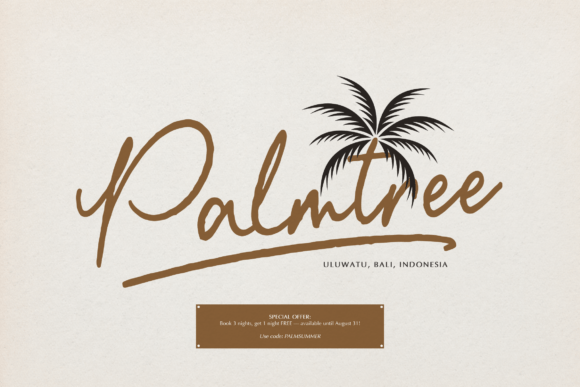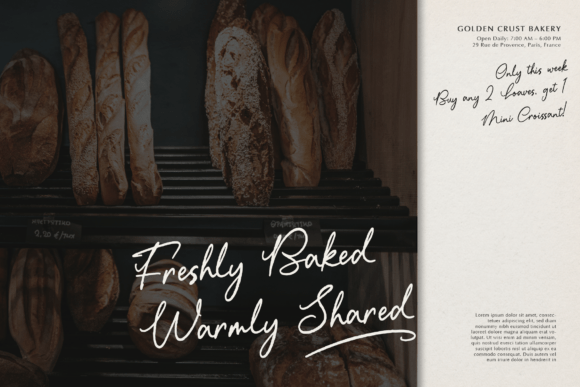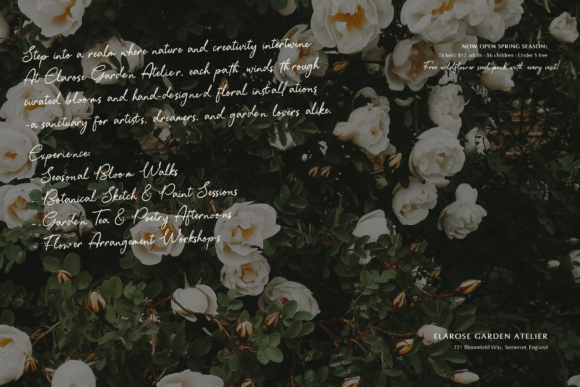
Introduction to Day Dreaming Font
The Day Dreaming is a graceful script handwritten font that captures the essence of calm creativity and romantic elegance.
With over 290 glyphs and beautiful ligatures, it’s perfect for wedding designs, quotes, stationery, branding, and elegant packaging Let your designs drift into poetic charm with every flowing stroke.
Key Features of Day Dreaming Font
Why Choose Day Dreaming Font?